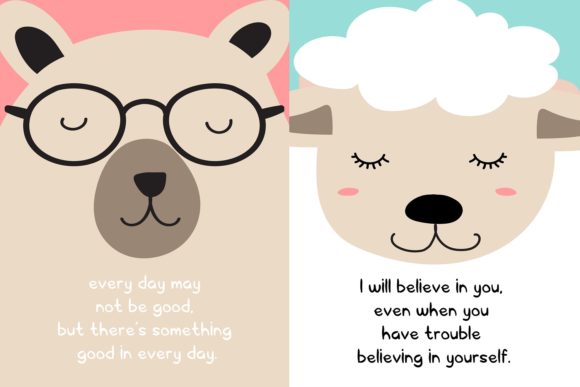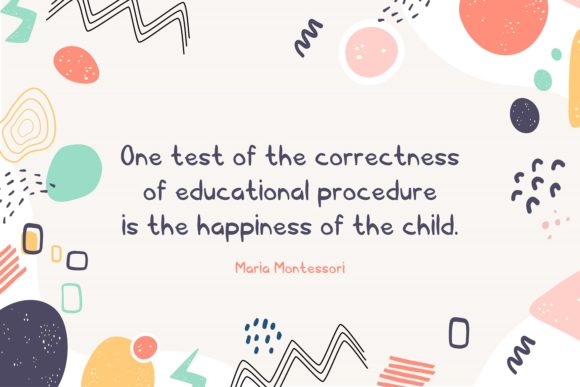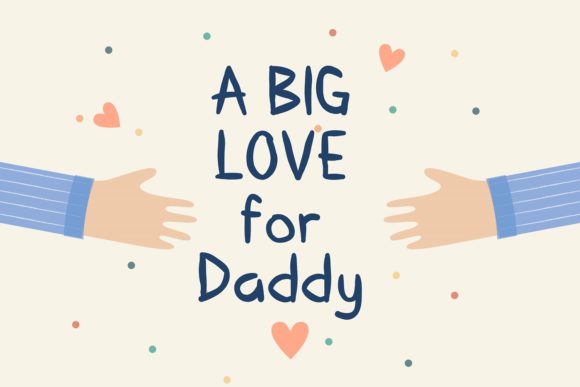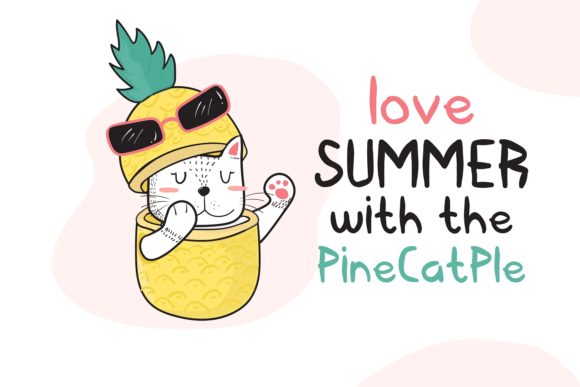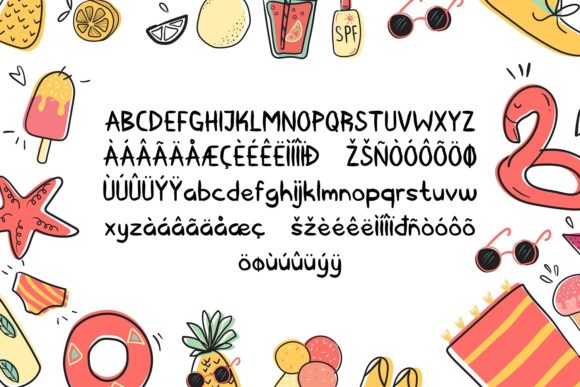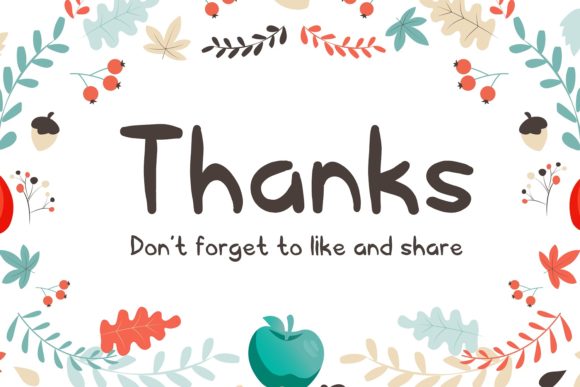
Introduction to Kerape Font Font
Fonts play a crucial role in design, and the Kerape Font font is a typeface that brings both character and versatility to any project. Whether you’re working on a branding project, a website, or a print design, the Kerape Font font offers a unique style that can elevate your work.
Kerape Handwriting Font (UPDATE.
) Kerape Handwriting Font, cute and funny font Font name was inspired by a fish in the sea.
Key Features of Kerape Font Font
Why Choose Kerape Font Font?
The Kerape Font font is more than just a typeface – it’s a design tool that helps you communicate your message with style and clarity. Its unique character set and versatile design make it suitable for a wide range of applications, from elegant invitations to bold headlines.
With its carefully crafted letterforms and balanced proportions, the Kerape Font font ensures readability and visual appeal across all mediums.
What makes Kerape Font font special?
The Kerape Font font stands out with its unique design, exceptional readability, and versatility across various design applications.